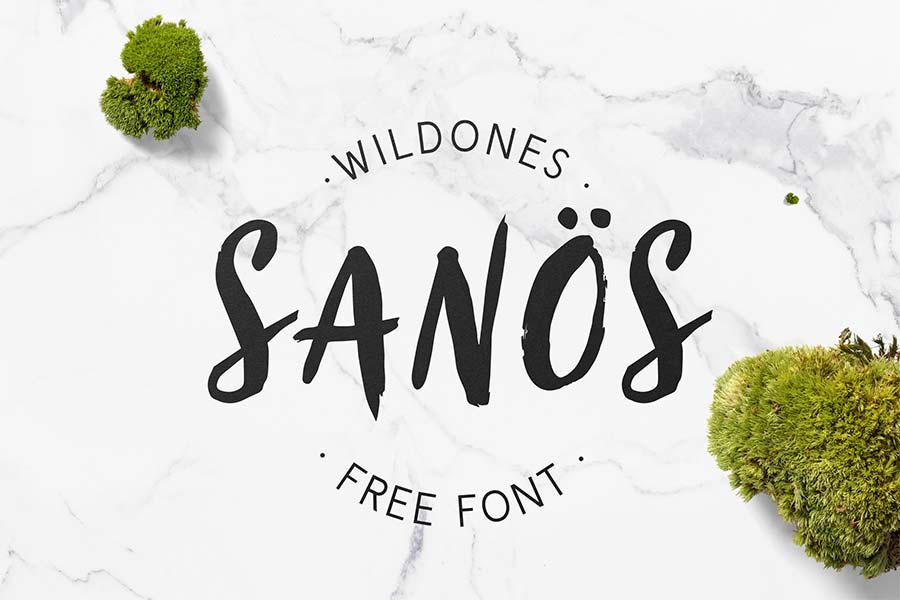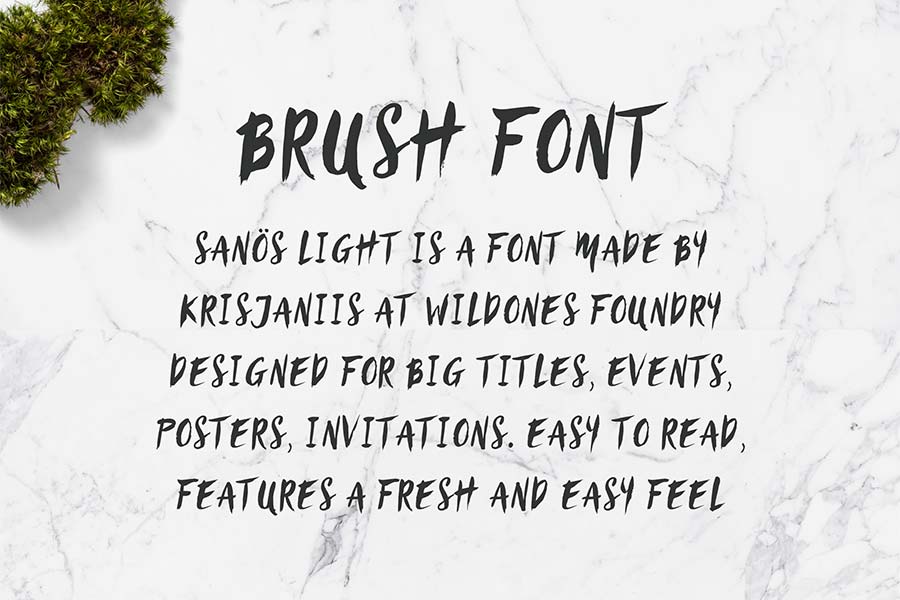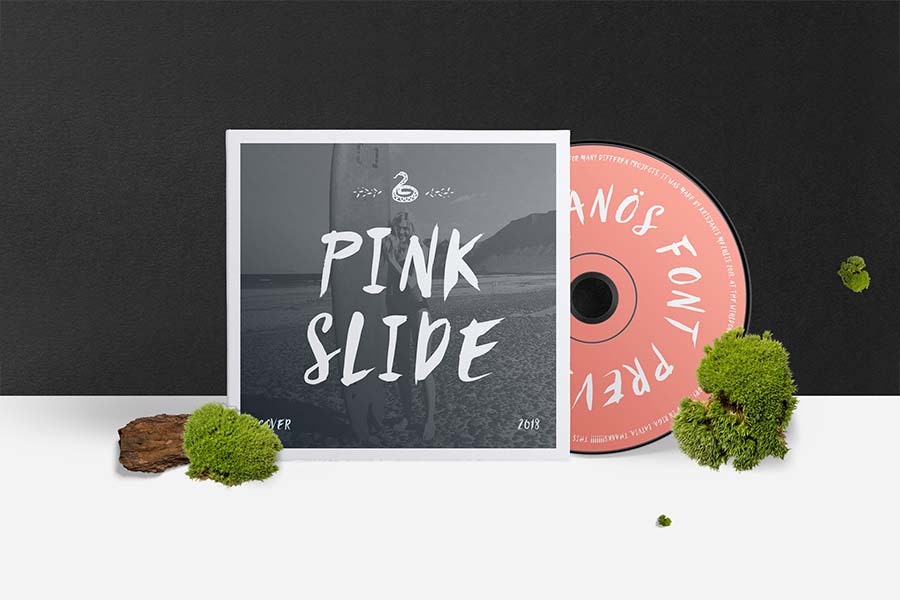
Sanös is a free brush font suitable for title displays. The letters were light-heartedly drawn giving the sense of casualness and free will.
Sanös comes with uppercase only and standard punctuations. It can be used for graphic designs like posters, invitation cards, labels or flyers designs. You can download this font for free and use it on your next personal or commercial projects.